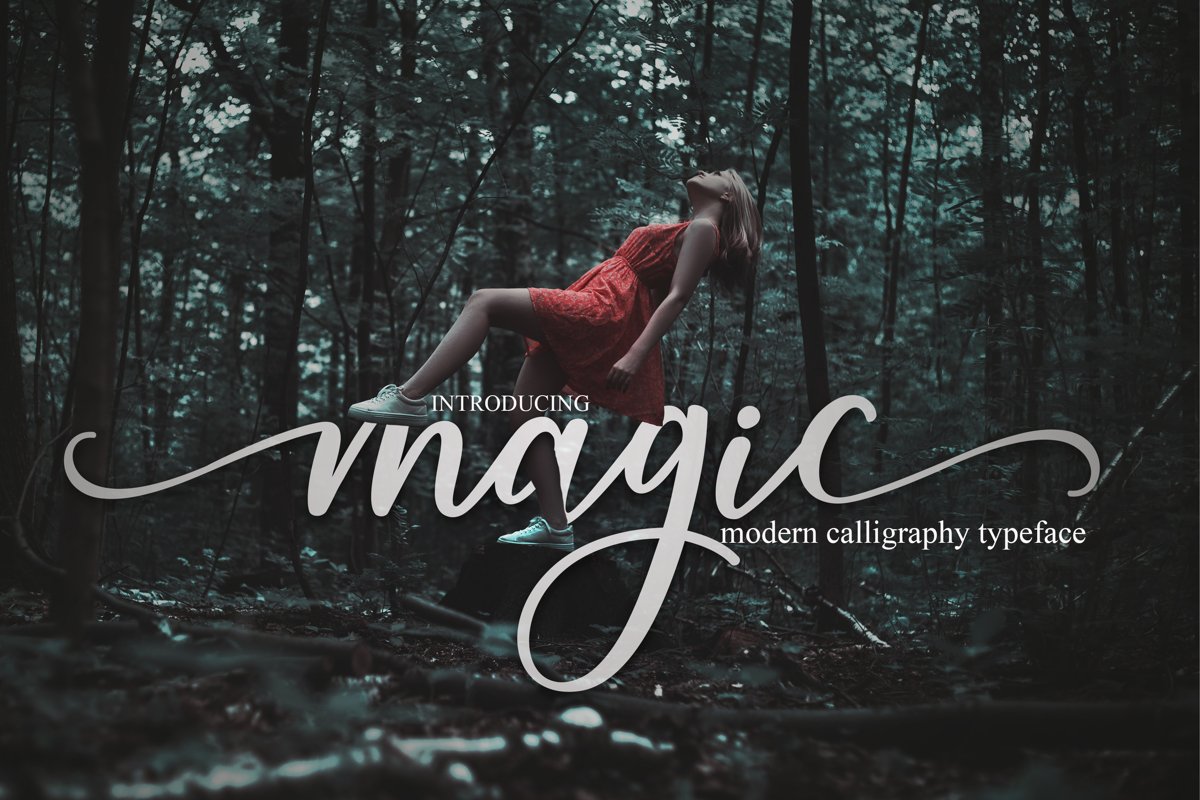
magic script
Magic Script is a modern calligraphy font with the current handwriting style, this font is perfect for branding, wedding invites, magazines, mugs, business cards, quotes, posters, and more, you can try first if you want to buy this font.